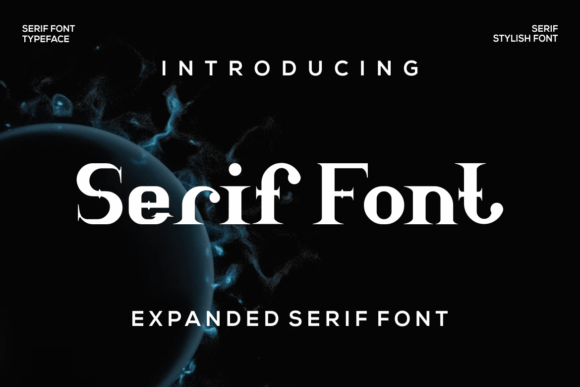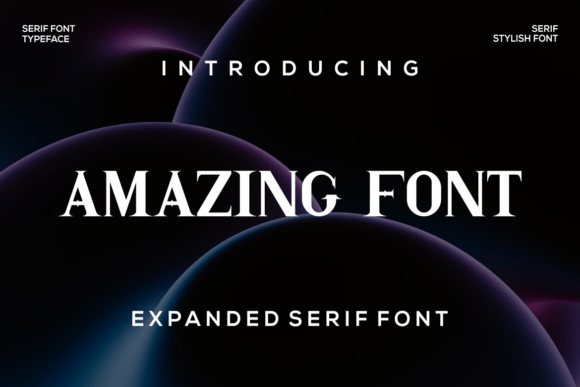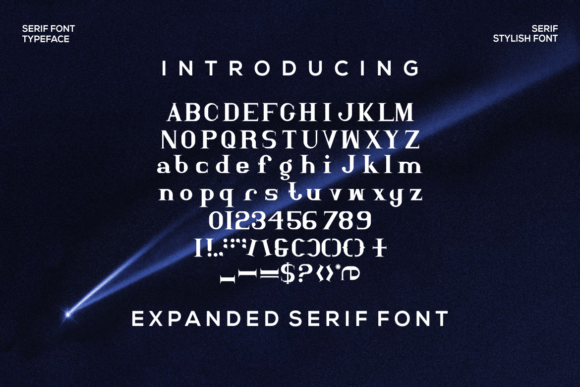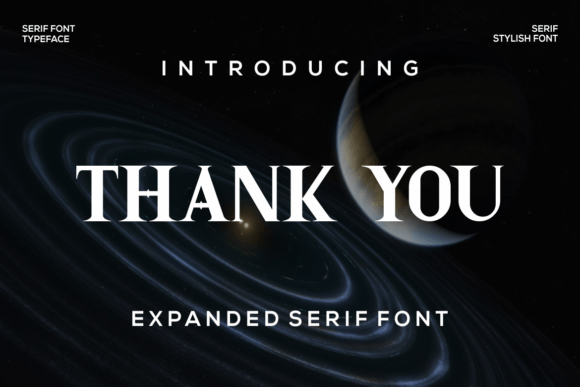
Introducing Devidaf Font: The Modern Display Font for Creative Projects
Are you tired of using the same old fonts for your branding projects? Look no further! We’re excited to introduce Devidaf Font, a bold and authentic display font that’s perfect for creating stunning logos, t-shirt designs, and creative products. In this article, we’ll dive into the features and benefits of Devidaf Font and explore how it can elevate your design game.
What is Devidaf Font?
Devidaf Font is a modern display font designed to make a statement. Its bold and authentic style makes it perfect for headlines, titles, and short text passages. The font is carefully crafted to ensure that it’s legible, even at large sizes, making it ideal for use on billboards, posters, and other large-format designs.
Key Features of Devidaf Font
- Bold and Authentic Style: Devidaf Font boasts a bold and authentic style that’s sure to grab attention.
- Highly Legible: The font is designed to be highly legible, even at large sizes, making it perfect for use on a variety of design projects.
- Versatile: Devidaf Font is versatile and can be used in a variety of contexts, from logos and branding to t-shirt printing and creative products.
- Easily Customizable: The font is easily customizable, allowing you to adjust the size, color, and style to suit your design needs.
Use Cases for Devidaf Font
Devidaf Font is perfect for a wide range of design projects, including:
- Logo Design: Create a bold and memorable logo that stands out from the crowd.
- T-Shirt Printing: Design eye-catching t-shirts that make a statement.
- Creative Products: Add a touch of personality to your creative products, such as stickers, posters, and flyers.
- Branding: Use Devidaf Font to create a consistent brand identity across all your marketing materials.
Benefits of Using Devidaf Font
By using Devidaf Font, you’ll enjoy a range of benefits, including:
- Unique and Memorable Designs: Devidaf Font helps you create unique and memorable designs that stand out from the crowd.
- Time-Saving: The font is easy to use and customize, saving you time and effort on your design projects.
- Consistency: Devidaf Font helps you maintain consistency across all your design projects, reinforcing your brand identity.
- Professional Look and Feel: The font gives your designs a professional look and feel, helping you establish credibility and trust with your audience.
Tips for Using Devidaf Font
Here are some tips for getting the most out of Devidaf Font:
- Experiment with Different Sizes: Play around with different font sizes to create visual interest and hierarchy in your designs.
- Pair with Other Fonts: Combine Devidaf Font with other fonts to create a unique and harmonious design.
- Use Color Effectively: Choose colors that complement the font and enhance the overall aesthetic of your design.
- Keep it Simple: Don’t overcomplicate your design – keep it simple and clean to ensure that the font shines.
| Font Name | Devidaf Font |
| Author | agusbolang1616 |
In conclusion, Devidaf Font is a powerful and versatile display font that’s perfect for designers and crafters looking to create stunning branding projects. With its bold and authentic style, high legibility, and ease of use, Devidaf Font is an excellent choice for a wide range of design applications. Whether you’re creating logos, t-shirts, or creative products, Devidaf Font is sure to help you make a statement and stand out from the crowd.